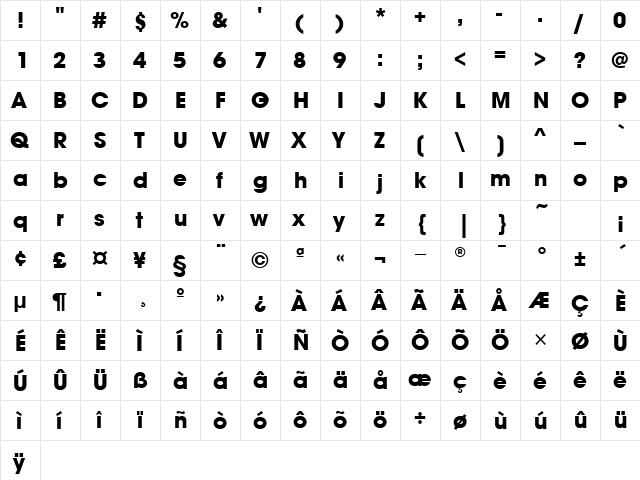
AvantGardeMdITCTT Bold
| Foundry | International Typeface Corporation |
| Designer | Herb Lubalin/Tom Carnase |
Design Context for AvantGardeMdITCTT Typeface
AvantGardeMdITCTT offers clean, dependable letterforms without strong stylistic allegiance, making it a practical choice for designers who need flexibility. Its bold stroke weight gives it real presence on the page.